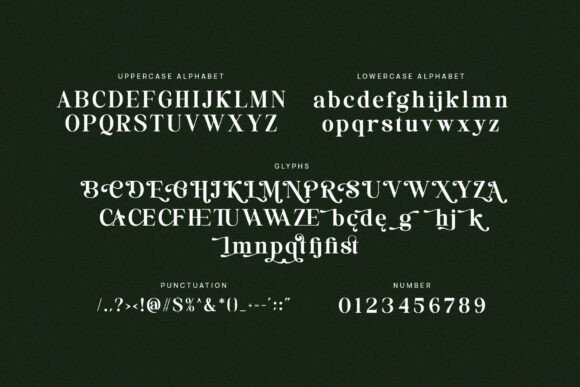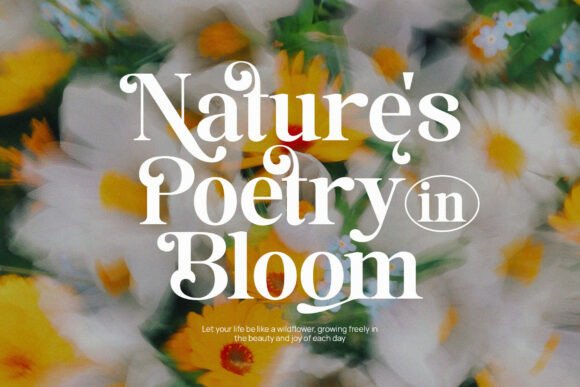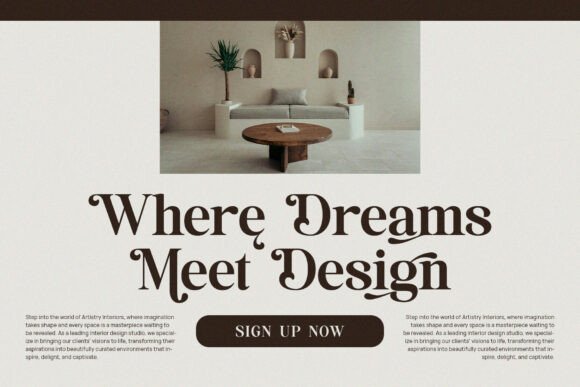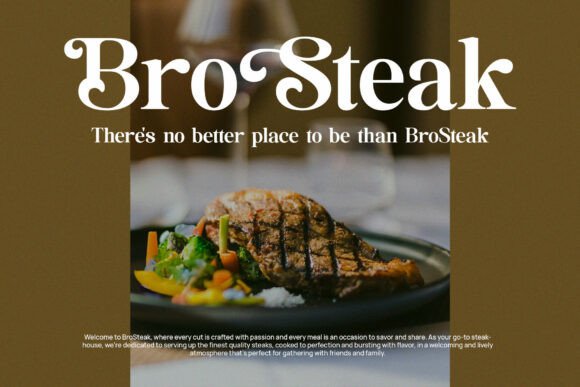
Introduction to Ketinste Font
Ketinste – Elegant Serif Font Introducing our new Ketinste, a modern serif font with an elegant style.
This is perfect for branding, logos, invitations, magazines, product packaging, and more .
Key Features of Ketinste Font